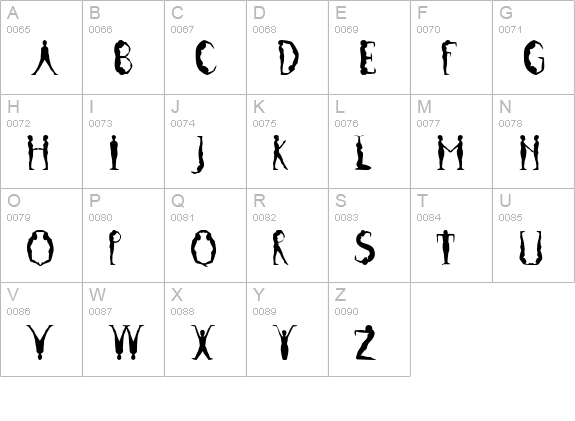
Postures MF Initials Font Details
Postures MF Initials font is a stunning display typeface that exudes elegance and sophistication. With its intricate details and unique design, this font is sure to make a statement in any project. The ornate initials add a touch of vintage charm, perfect for adding a classic flair to your designs. What sets Postures MF Initials font apart is not just its beautiful aesthetics, but also its versatility. Whether you're creating invitations, branding materials, or editorial designs, this font will elevate your work to the next level. Its timeless appeal makes it suitable for a wide range of applications. Best of all, Postures MF Initials font is completely free to download at FontsMarket.com. This means you can access this premium font without any cost, making it a valuable addition to your design toolkit. Don't miss out on the opportunity to enhance your projects with the exquisite charm of Postures MF Initials font. Download it today and let your creativity shine.